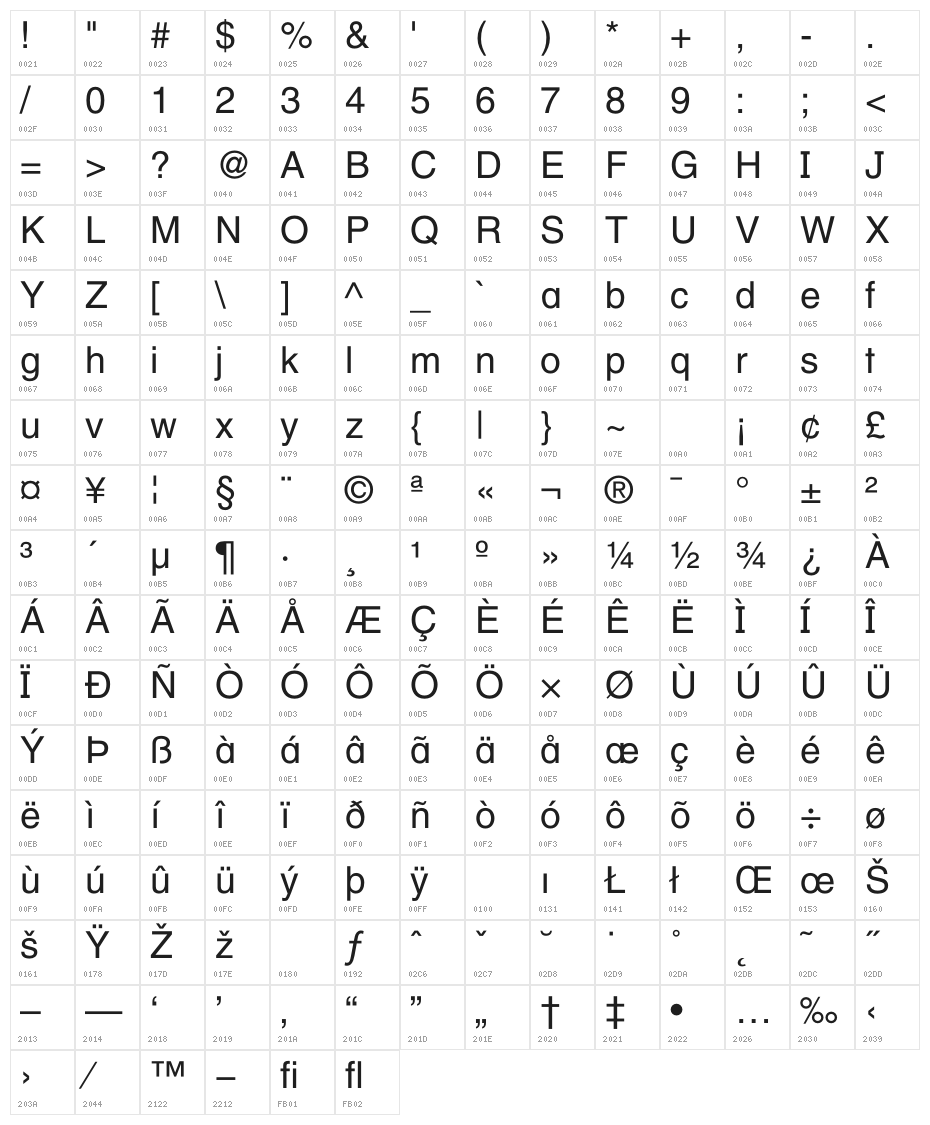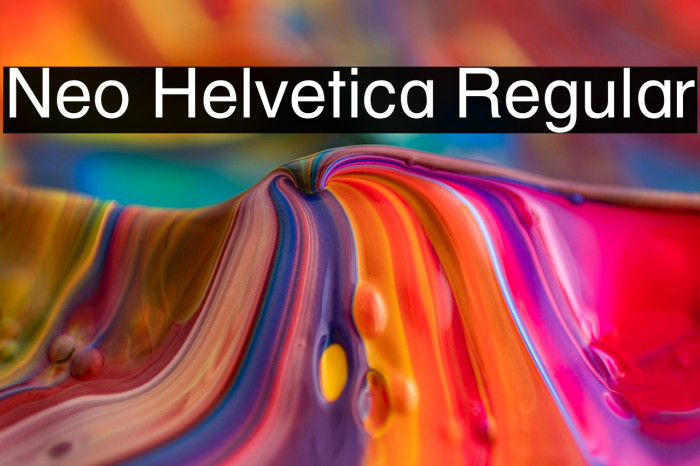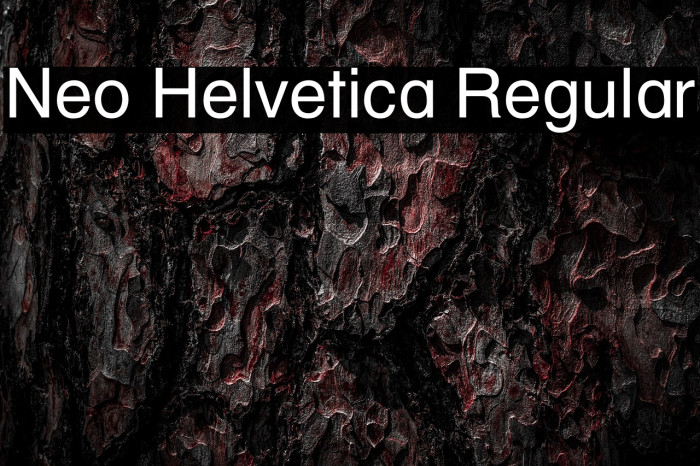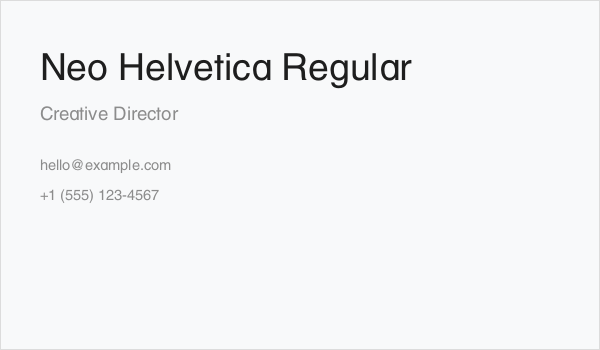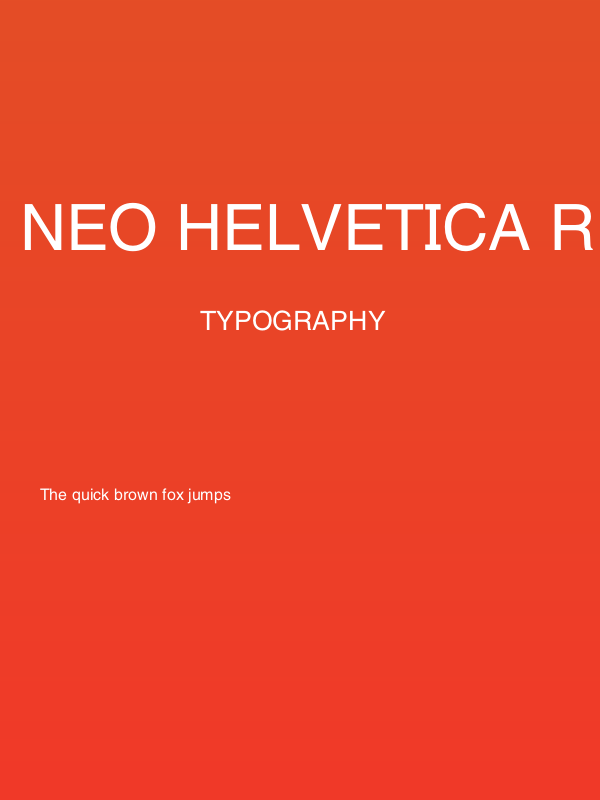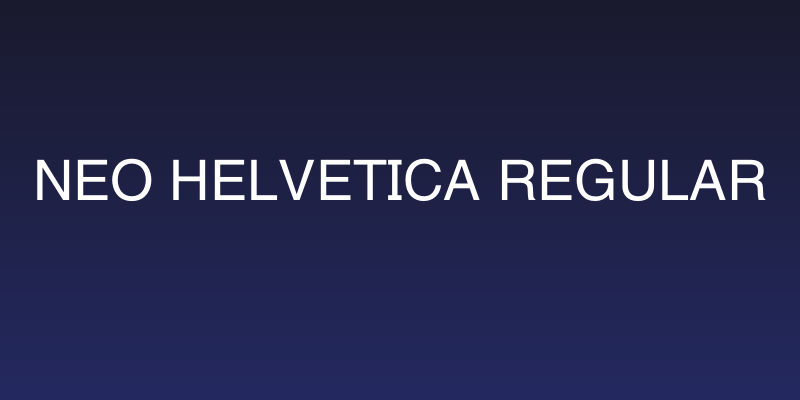
Neo Helvetica Regular Font
Neo Helvetica Regular Description
This font features a clean and modern sans-serif design, characterized by its simplicity and clarity. The letters are evenly spaced, with a uniform stroke width that provides a balanced and harmonious appearance. The uppercase and lowercase letters are well-proportioned, making it highly legible at various sizes. The numerals are straightforward and align well with the overall style, while the special characters are distinct and easy to recognize. This font is versatile, suitable for both digital and print media, and can be used in a wide range of applications.
| Proposed Projects | Ideal for branding, web design, corporate materials, and editorial layouts. |